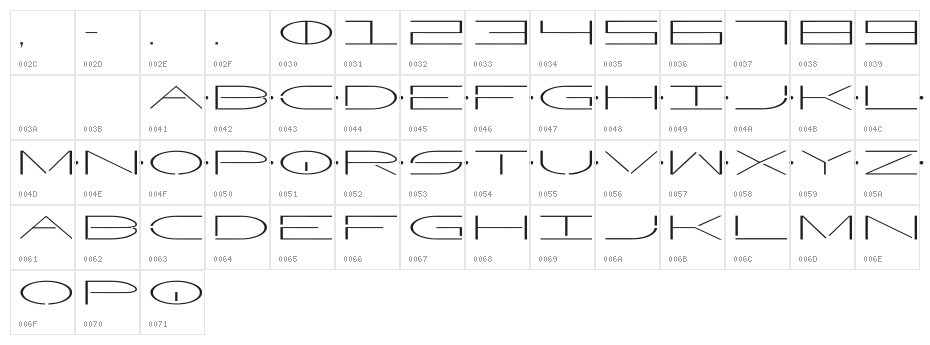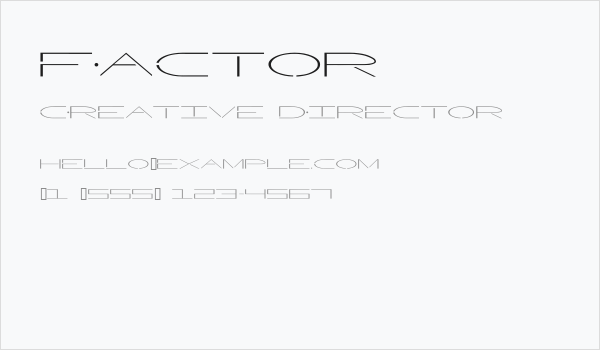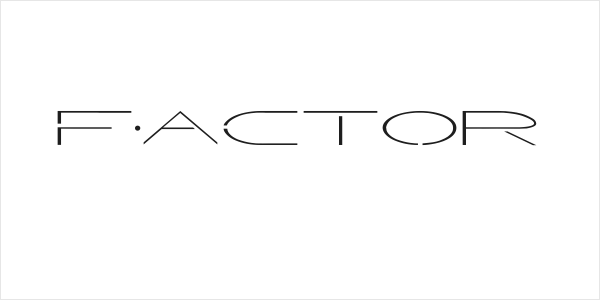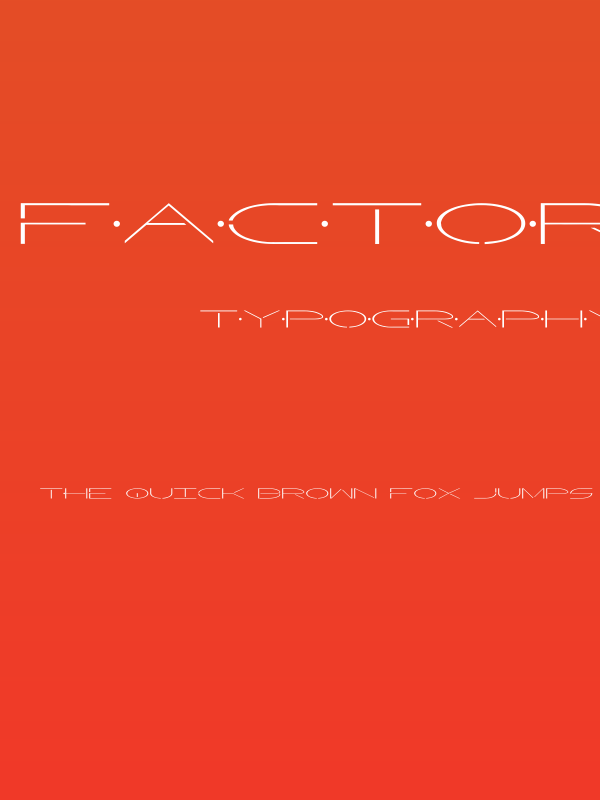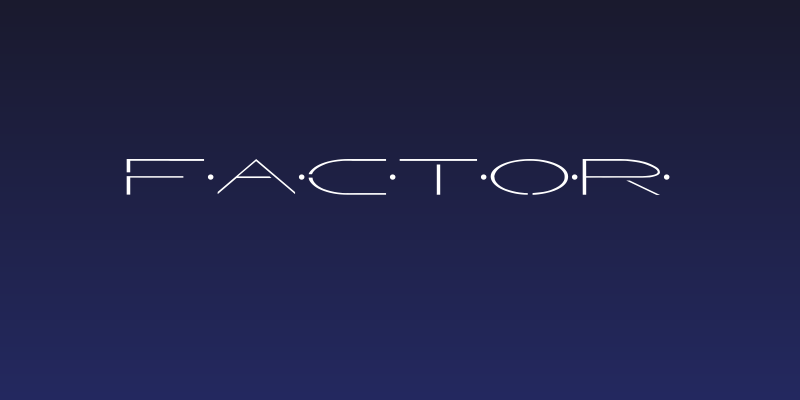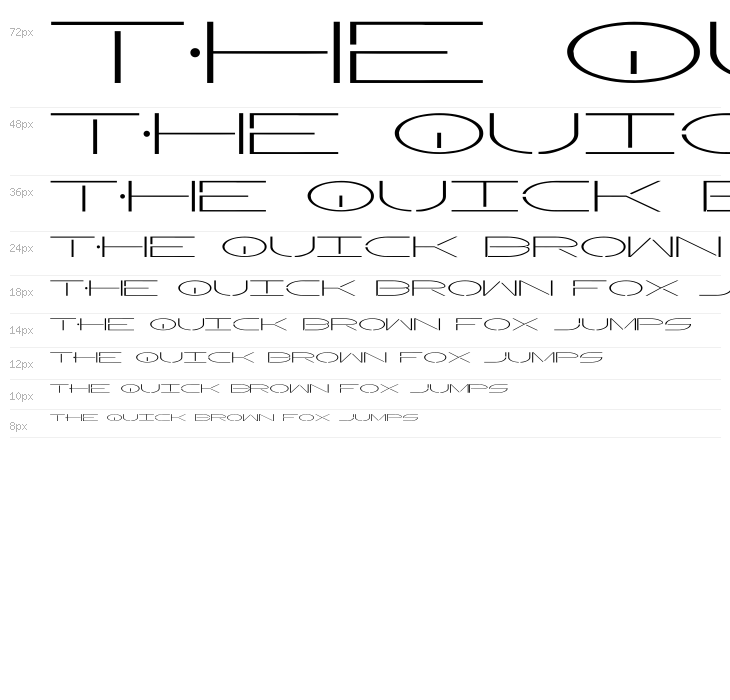
Factor Font
Factor Description
This font features a futuristic and geometric design with clean, straight lines and circular elements. The uppercase letters are constructed with a minimalist approach, incorporating thin strokes and consistent spacing. The numbers follow a similar style, maintaining the geometric theme. The special characters are designed to complement the overall aesthetic, adding a modern touch. The font's unique style makes it suitable for projects that require a contemporary and sleek appearance.
| Use Case | Logos, Headlines |
| Proposed Projects | Ideal for technology branding, modern posters, and sci-fi themed designs. |